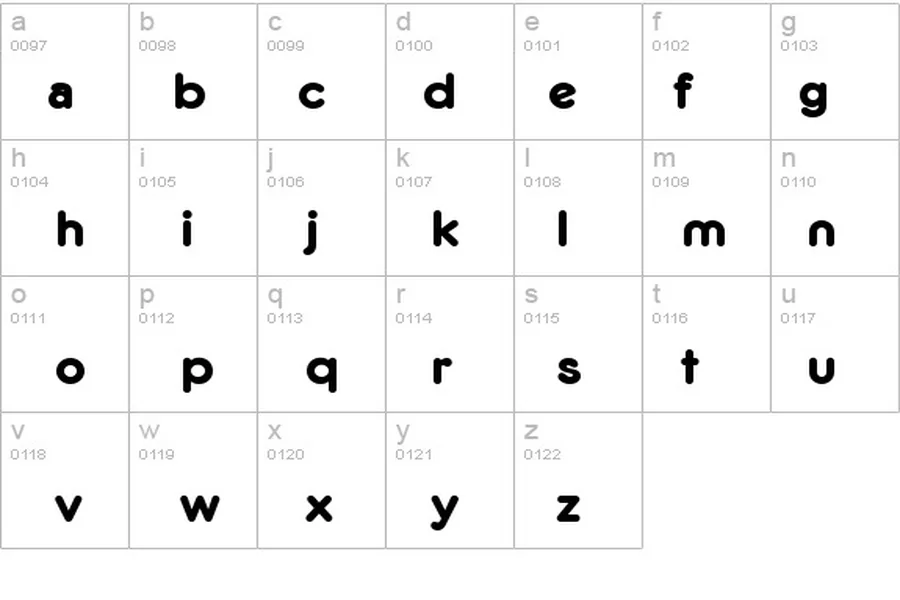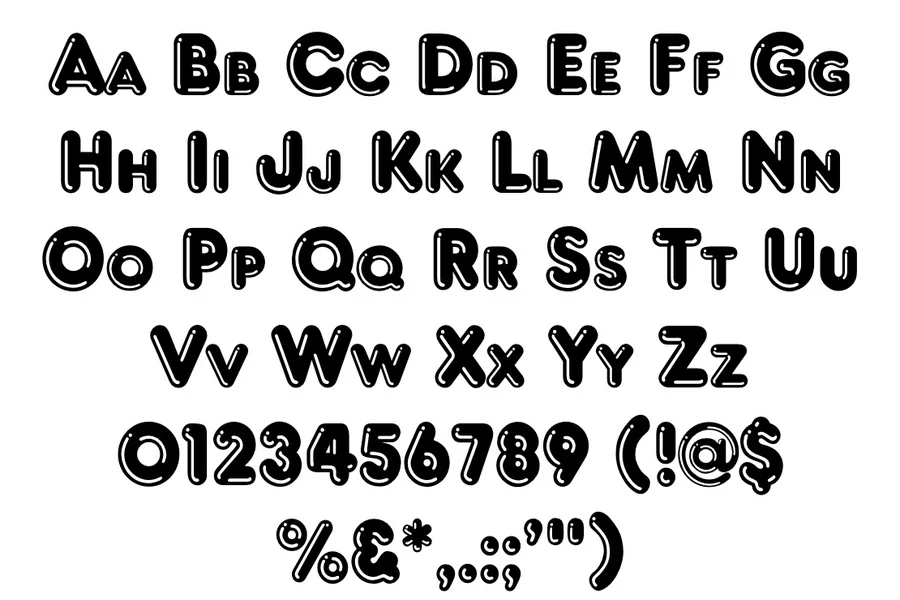
Frankfurter Font Style Guide For Creative Modern Design
Frankfurter font is a bold playful font that makes the design instantly joyful. It is approachable and self-confident simultaneously. Frankfurter Font is used by designers who may want to get attention, but not too much. It is warm and round that makes it ideal in packaging and branding of posters.
This font has cartoon-ish appeal but can be professional when applied in a good way. It is very effective in logos headlines and computer art. It is liked by many as it is living and expressive. The curves are gentle and the weight seems equalized. Frankfurter Font comes out without being imposed.
Frankfurter Font is used to have fun projects by designers worldwide. It designs poster-retro, and cute websites to fit food brands targeted at kids. It is also effective in bold headings where the clarity is of concern.
The History and Personality of Frankfurter Font
Frankfurter Font originated in the jocular display type. It was also inspired by hand drawn styles of lettering which are friendly and informal. With time it gained its popularity in advertisement and packaging.
The character of Frankfurter Font is dashing cheerful and friendly. It is not rigid or hard. Rather it creates the impression of coziness and friendliness. This is the reason why most designers opt to use it in artistic projects that require feeling.
It is an excellent font to use when it is necessary to attract attention in a short period. It has a kind voice and speaks loudly. The use of the rounded shapes assists in softening the message. It is very human and expressive.
The use of Frankfurter Font also complements clean sans serif fonts. This is a contrast to balance playful and modern design styles. It is a font that is used by many designers as a headline font with simple body text.
Where Frankfurter Font Works Best
Frankfurter Font thrives on creative grounds. It is effective when used in logos posters menus book covers and social media graphics. It is also very attractive on the packaging of products particularly the food and beverages.
It is a perfect font to use with children related content. It feels fun and safe. It also suits the vintage inspired designs. Combined with warm colors it gives a nostalgic impression.
Event branding can also be conducted with the help of Frankfurter Font. It is used in festivals cafes and pop up shops to gain attention. It assists in making it friendly and inviting.
It is also the favorite font of digital creators. It works effectively on screens and is also legible in a smaller size. This is applicable in banners and thumbnails.
Creative Design Tips Using Frankfurter Font
There should be a clean spacing when using Frankfurter Font. Give it room to breathe. Do not include dense textures and background details.
Make the bold colors to make it playful. Dark reds and yellows and blues are effective. Soft friendly looks are also produced by pastel shades.
Combine Frankfurter font with plain fonts such as Arial Lato or Open Sans. Such a balance makes your design legible and contemporary.
Do not use it with lengthy paragraphs. It is applicable to headlines and brief expressions. Let it shine without overuse.
Popular Font Names That Match Frankfurter Style
Frankfurter Font is repeatedly changed or compared with other similar fonts by designers. These are more than fifty font names that have a playful bold or rounded style.
These fonts share friendly shapes and bold presence similar to Frankfurter Font.
Why Designers Love Frankfurter Font
Frankfurter Font is popular with designers; it is alive. It brings a personality but not distracting. It makes brands feel like humans and friendly.
This font is also cross platform adaptive. It operates both print as well as digital. The flexibility of the same makes it a designer favorite.
The other cause is emotional influence. Frankfurter Font makes one happy and inquisitive. It encourages involvement and participation.
It is also easy to recognize. When you look at it you do not forget it. That is why it is ideal in branding.
How to Use Frankfurter Font for Branding
Frankfurter Font Branding gives an image of friendliness. It is efficient with food brands cafes toy stores and lifestyle products.
Frankfurter Font is a bold display font with rounded shapes and a playful personality.
Is Frankfurter Font good for logos?
Yes it works very well for logos especially for brands that want a friendly and fun image.
Can Frankfurter Font be used for body text?
It is better for headlines and short text rather than long paragraphs.
Is Frankfurter Font suitable for digital use?
Yes it looks clear and strong on screens and digital designs.
What fonts pair well with Frankfurter Font?
Simple fonts like Open Sans Lato or Montserrat pair well with it.